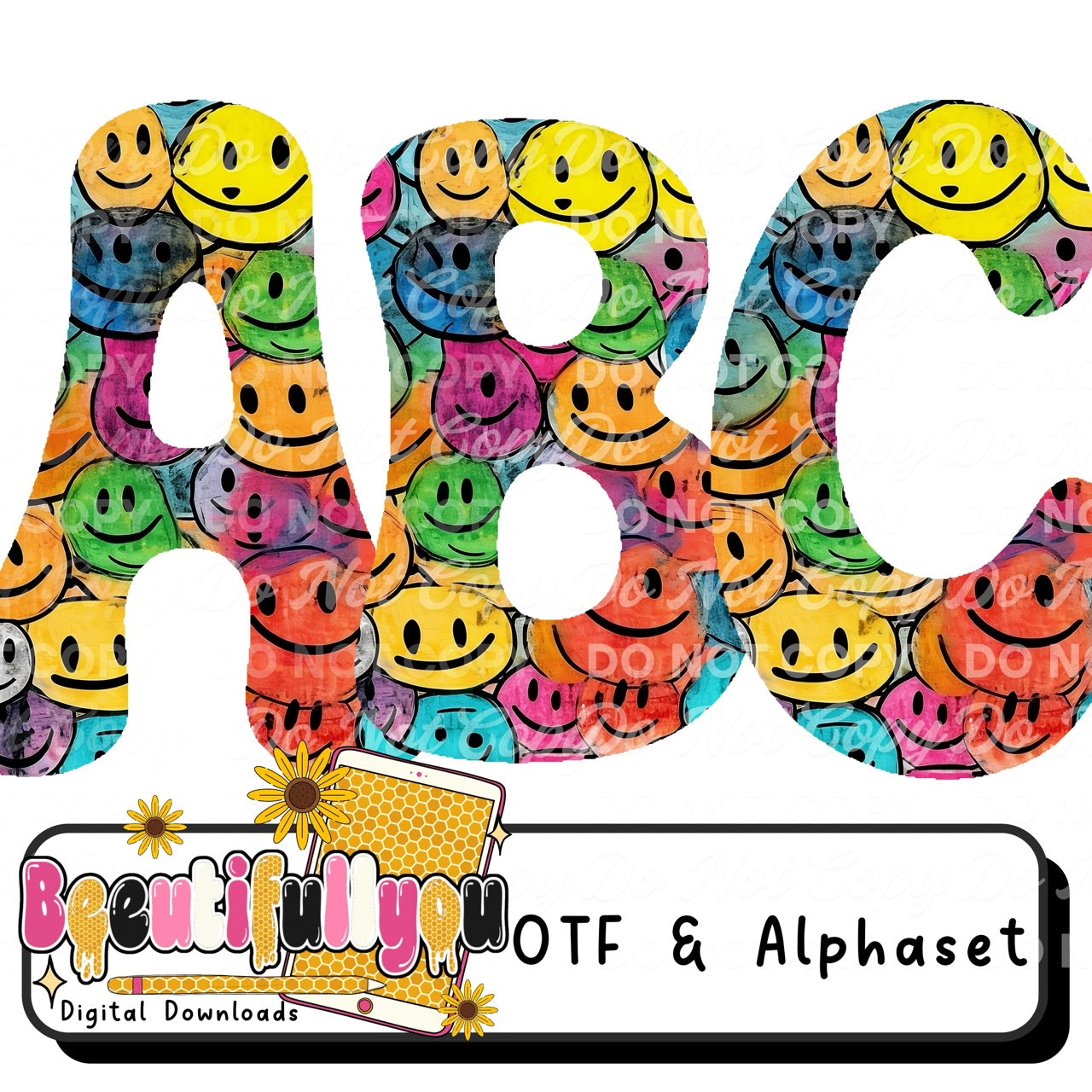
Smiley Retro Font OTF + PNG Alphabet | Groovy Bubble Letters A-Z | Y2K Happy Face Font | Colorful Font Download
This fun and vibrant smiley face alphabet comes as both an installable OTF font AND a PNG alphabet set, giving you total flexibility in your designs.
With bold bubble lettering and colorful smiley patterns, this font is made to stand out in trendy, playful designs.
✔ Clean, bold bubble lettering style